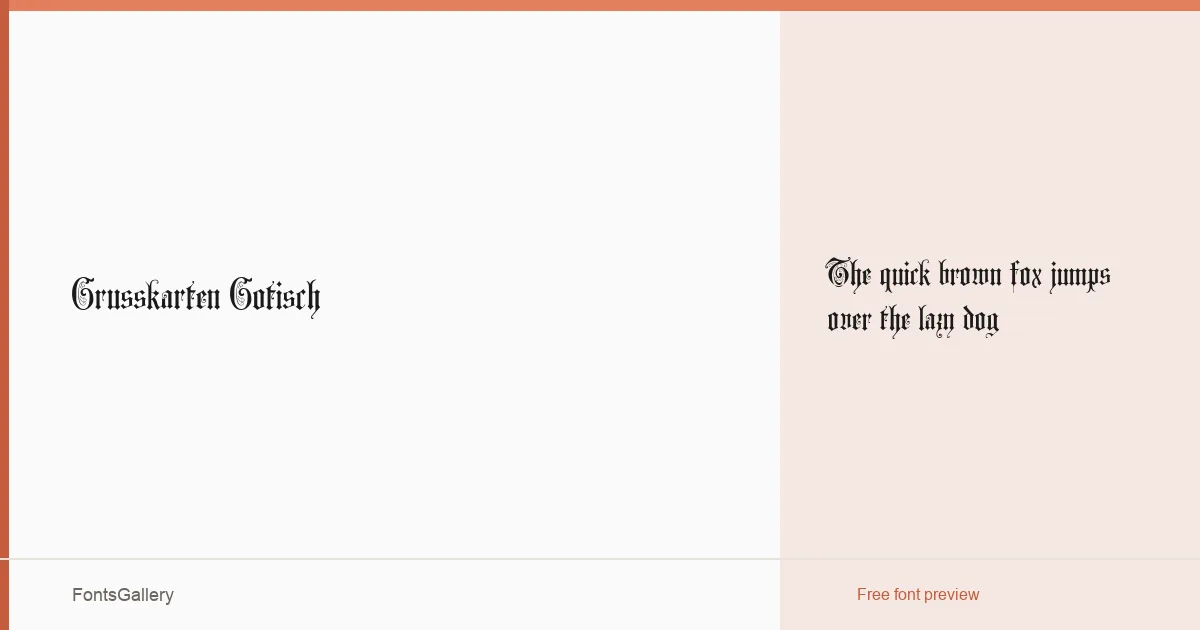
About Grusskarten Gotisch Font
Grusskarten Gotisch is a refined blackletter typeface published by Typographer Mediengestaltung, crafted to evoke the elegance and timeless charm of classic Gothic lettering. Its name — evoking greeting cards in the German tradition — speaks directly to its ceremonial and decorative character. This typeface brings a distinctly vintage and romantic sensibility to any project that calls for heritage-inspired typography.
As a blackletter typeface, Grusskarten Gotisch features the characteristic dense, angular strokes and ornate detailing associated with traditional Gothic scripts. Its letterforms carry an elegant, classic quality that balances historical formality with romantic flourish. The overall aesthetic is rich and ceremonial, making each character feel carefully crafted and visually distinctive.
Grusskarten Gotisch is ideally suited for applications where sophistication and tradition are paramount, including wedding stationery, invitation cards, greeting cards, certificates, and logo design. Its decorative blackletter style lends authority and beauty to any formal or celebratory context. For a striking typographic contrast, it pairs beautifully with the clean neutrality of Helvetica or the complementary character of Aresink.